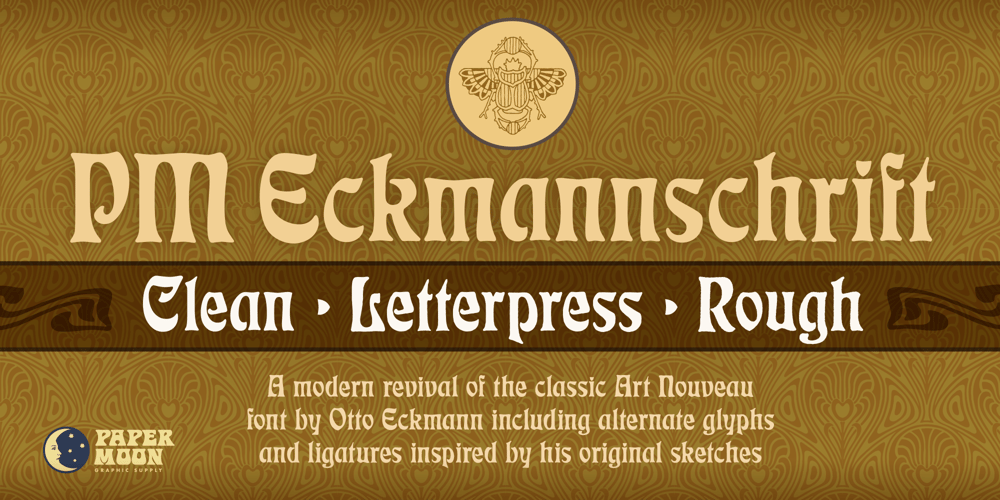
PM Eckmannschrift Font Family was designed by Scott Banks and published by Paper Moon Type & Graphic Supply. PM Eckmannschrift contains 3 styles and family package options. Eckmannschrift is a redrawing based on original sketches and type specimens of the original 1900 Otto Eckmann typeface Eckmannschrift. It includes the original characters designed by Otto Eckmann not included in most modern releases of the font. Though it is a vintage typeface, it has found several popular resurgences of use over its 100 years in existence, including today’s retro styles and psychedelic posters from the 1960s.